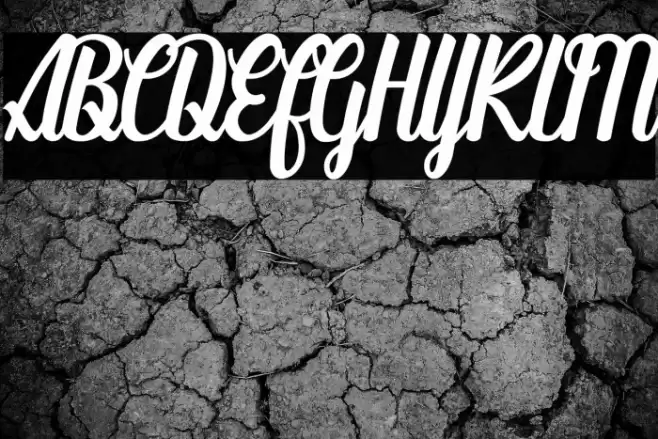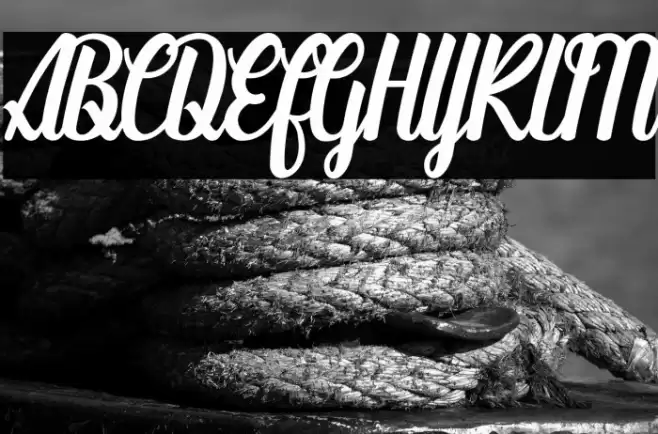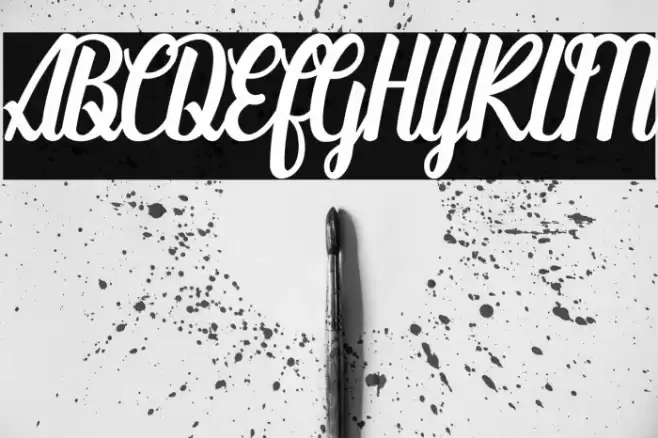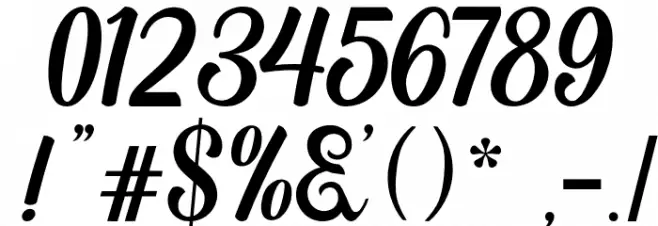
TheButterplay Font
TheButterplay Description
This font features a bold and flowing script style, characterized by its elegant and connected letterforms. The uppercase letters are tall and slightly slanted, giving a sense of movement and fluidity. The lowercase letters maintain a consistent flow, with smooth curves and loops that enhance its cursive nature. The numerals are bold and clear, matching the overall style of the alphabet. Special characters are designed with the same attention to detail, ensuring a cohesive look throughout. This font is ideal for projects that require a touch of elegance and sophistication.
A bold, flowing script font with elegant, connected letterforms from Uncategorized fonts.
- Font: TheButterplay
- Proposed Projects: Ideal for wedding invitations, branding, logos, and elegant packaging designs.
- Overall Style: Elegant, Decorative
- Use Case: Logos, Invitations, Branding
TheButterplay UPPERCASE
TheButterplay LOWERCASE
TheButterplay OTHER CHARS